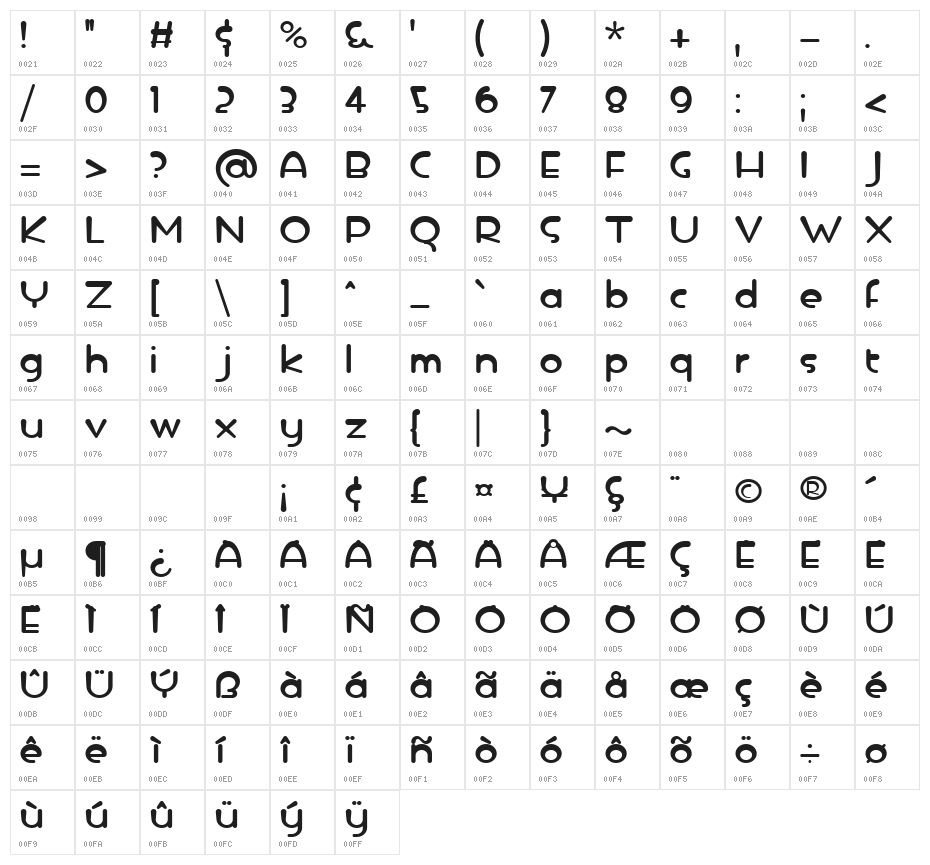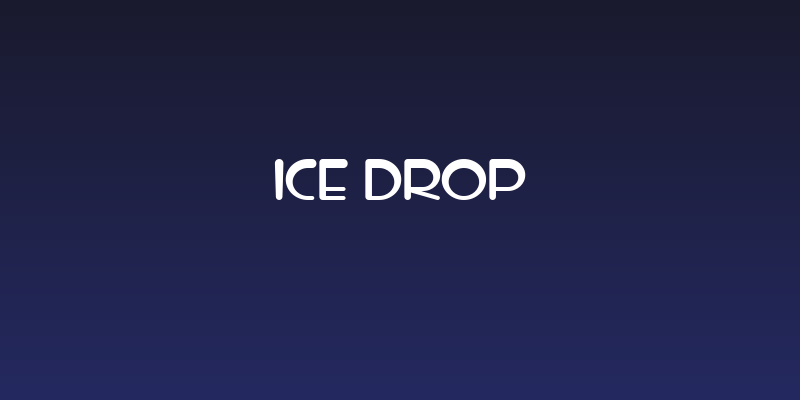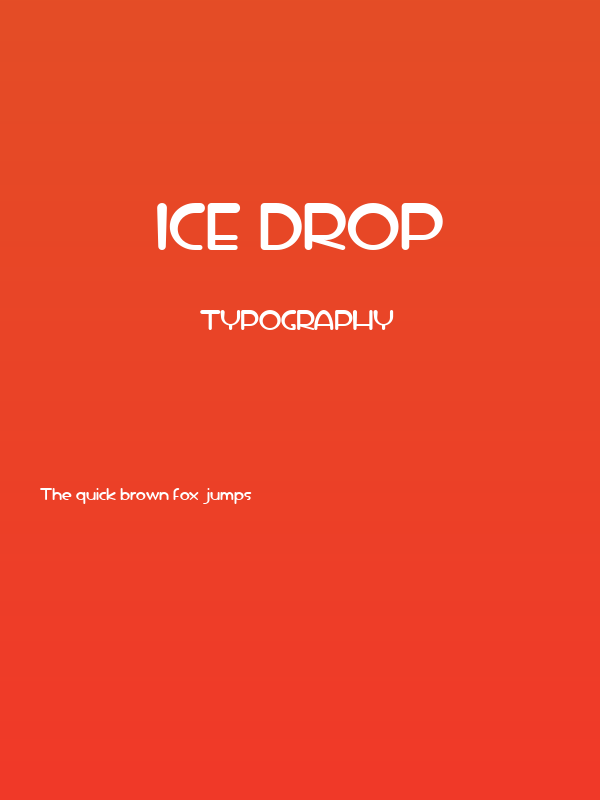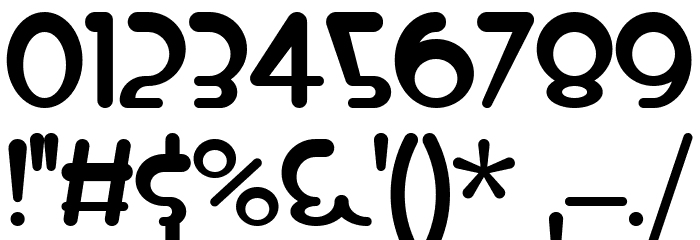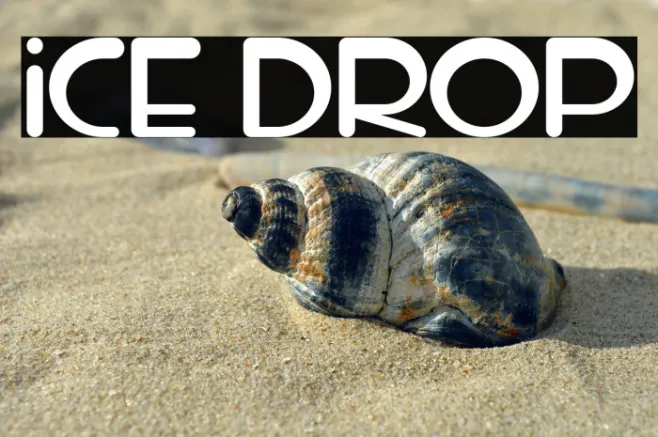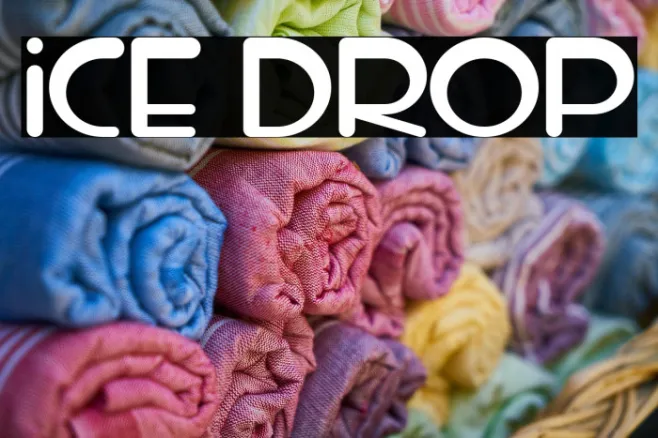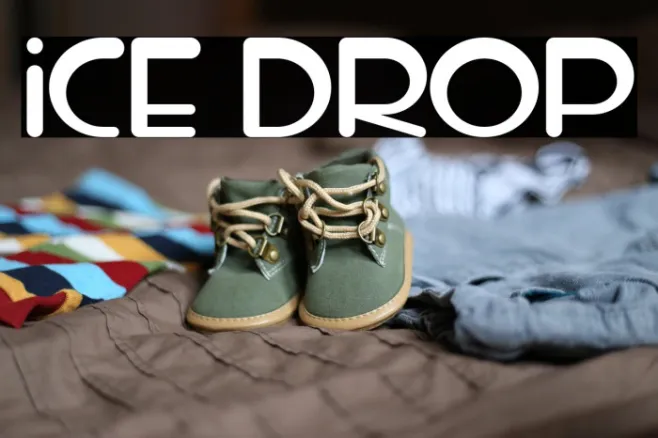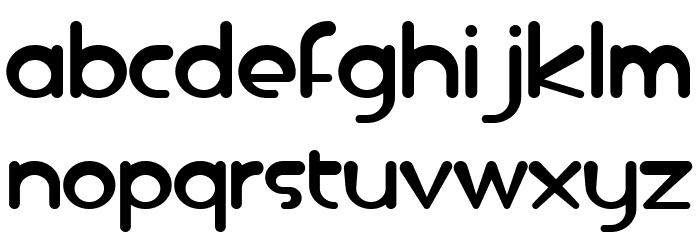
iCE DROP Font
iCE DROP Description
This font features a modern and playful design with rounded edges and a smooth, flowing appearance. The characters are bold and slightly condensed, giving them a strong presence while maintaining readability. The uppercase letters have a uniform height, and the lowercase letters are slightly shorter, creating a balanced look. The numbers are distinct and easy to read, with a consistent style that matches the letters. Special characters are well-integrated, maintaining the overall aesthetic. The font's style is versatile, suitable for a variety of creative projects.